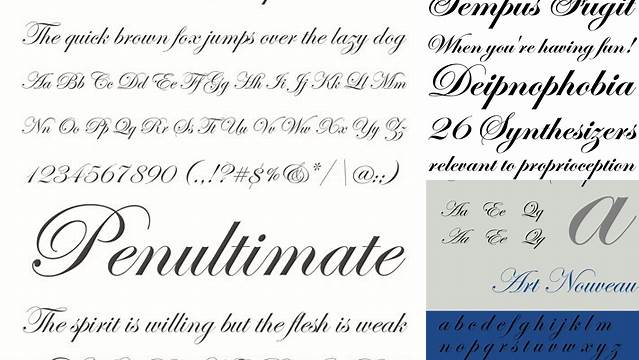
ITC Edwardian Script Pro Font: Free Downloads & Alternatives
Hey guys! Are you on the hunt for that perfect font to add a touch of elegance and sophistication to your projects? Look no further! In this comprehensive guide, we're diving deep into the world of ITC Edwardian Script Pro font, a classic and beautiful typeface that can elevate your designs. We'll explore how to find free downloads (legally, of course!), discuss its best uses, and even suggest some awesome alternatives if it's not quite the right fit. So, buckle up and let's get started!
What is ITC Edwardian Script Pro Font?
When we talk about ITC Edwardian Script Pro, we're referring to a typeface that just oozes class and refinement. Imagine the flowing, graceful strokes of calligraphy, and you're on the right track. This font is a true masterpiece, designed to evoke the elegance of the Edwardian era, a time known for its ornate details and sophisticated style. It's not just a font; it's a statement. The beauty of ITC Edwardian Script Pro font lies in its intricate curves and delicate lines. Each character is carefully crafted to create a sense of fluidity and movement, making it incredibly pleasing to the eye. This font family really shines when you need to add a touch of formality or luxury to your design. Think wedding invitations, elegant logos, high-end branding materials, or even certificates and awards – it's a versatile choice for any project that demands a touch of sophistication. But guys, it's not just about looking pretty. This font is surprisingly legible, even with its elaborate design. The letters are distinct and well-spaced, preventing them from blurring together, which is a crucial factor to consider when choosing a script font. No one wants a beautiful font that no one can actually read! The ITC Edwardian Script Pro family offers different weights and styles, giving you even more flexibility in your designs. You can choose a lighter weight for a delicate and airy feel, or a heavier weight to make a bolder statement. You could also combine different weights within the same design to add visual interest and hierarchy. This adaptability makes it a valuable asset for designers working on a variety of projects. When it comes to using this font, think about the overall tone and message you want to convey. This script isn't exactly the best choice for a bold, modern tech startup, but it could be perfect for a luxury skincare brand or a high-end restaurant. Consider the context and audience, and you'll be able to leverage the unique beauty of ITC Edwardian Script Pro to its fullest potential. So, whether you're a seasoned designer or just starting out, understanding the nuances of this fantastic font will definitely add another tool to your creative arsenal. Trust me, guys, having ITC Edwardian Script Pro font in your font library is like having a secret weapon for elegance!
Best Uses for ITC Edwardian Script Pro Font: Where Does This Font Truly Shine?
Now that we've covered the ins and outs of finding ITC Edwardian Script Pro font and its alternatives, let's dive into where this font truly shines. It's not a one-size-fits-all typeface, guys, but when used in the right context, it can elevate your design from nice to wow. This font's strength lies in its elegance and formality, so naturally, it's a perfect fit for projects that need a touch of sophistication. Think about events that call for a sense of occasion, like weddings, anniversaries, or galas. ITC Edwardian Script Pro font is practically made for wedding invitations, save-the-dates, and thank-you cards. Its graceful curves and flowing lines evoke romance and timeless beauty, setting the perfect tone for a special day. It can also add a touch of class to event programs, menus, and signage. But weddings are just the beginning! This font is also a fantastic choice for branding materials that need to convey a sense of luxury and exclusivity. High-end brands in industries like fashion, beauty, jewelry, and hospitality can benefit greatly from the use of ITC Edwardian Script Pro font in their logos, packaging, and marketing materials. Imagine a luxury skincare brand using this font on its packaging – it instantly communicates quality and elegance. Similarly, a boutique hotel could use it for its logo and stationery to create a sophisticated and welcoming brand identity. Certificates and awards are another area where this font excels. It adds a touch of formality and prestige to these documents, making them feel more special and significant. Think about diplomas, graduation certificates, employee recognition awards, or even calligraphy-style artwork – ITC Edwardian Script Pro font can make them truly stand out. Beyond these specific applications, this font can also be used effectively in other areas where a touch of elegance is desired. It can add a sophisticated flair to book covers, magazine layouts, and even website headers. However, guys, it's important to use it sparingly and in the right context. Overusing this font can make your design feel cluttered and overwhelming. It's best used for headings, titles, and short bursts of text, rather than long paragraphs of body copy. The delicate nature of the script can make it tiring to read in large blocks of text. Another key consideration is readability. While ITC Edwardian Script Pro font is generally legible, it's not the most readable font for smaller sizes or low-resolution displays. Make sure your text is large enough and your design is clean and uncluttered to ensure optimal readability. When pairing this font with other typefaces, choose fonts that complement its elegance without overpowering it. Simple sans-serif fonts or classic serif fonts can work well, creating a balanced and harmonious design. Avoid pairing it with overly decorative or playful fonts, as this can create a jarring contrast. Ultimately, the best uses for ITC Edwardian Script Pro font are those that leverage its inherent elegance and formality. By understanding its strengths and limitations, you can use this beautiful typeface to create designs that are both sophisticated and impactful. So go on, guys, let your creativity flow and see where this font can take you!
ITC Edwardian Script Pro Font Free Download: Final Thoughts
Alright guys, we've reached the end of our deep dive into the world of ITC Edwardian Script Pro font! We've covered everything from its elegant characteristics and best uses to the crucial importance of avoiding illegal downloads and exploring safe alternatives. Remember, while the allure of a free download might be tempting, the risks simply aren't worth it. Not only are you potentially jeopardizing your computer's security, but you're also disrespecting the hard work and artistry of the font's creators. There are plenty of legitimate ways to access beautiful fonts like ITC Edwardian Script Pro font, whether it's through purchasing a license, subscribing to a font service, or exploring free alternatives. By choosing the ethical route, you're supporting the design community and ensuring that you're using fonts in a way that's both legal and sustainable. Whether you decide to invest in ITC Edwardian Script Pro font or opt for a similar typeface, the key is to use it thoughtfully and strategically. Consider the overall tone and message of your project, and choose a font that complements your vision. Experiment with different font pairings and styles to create a design that's both visually appealing and effective. And most importantly, guys, have fun with it! Typography is a powerful tool that can transform your designs and communicate your message in a compelling way. So go ahead, explore the world of fonts, and let your creativity shine! I hope this comprehensive guide has been helpful in your quest for the perfect typeface. Remember to always prioritize safety and legality when sourcing your fonts, and don't be afraid to experiment and discover new favorites. Now go out there and create something amazing!